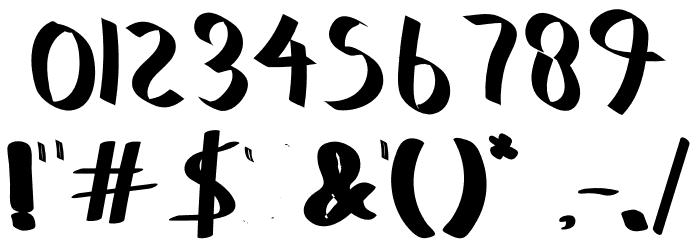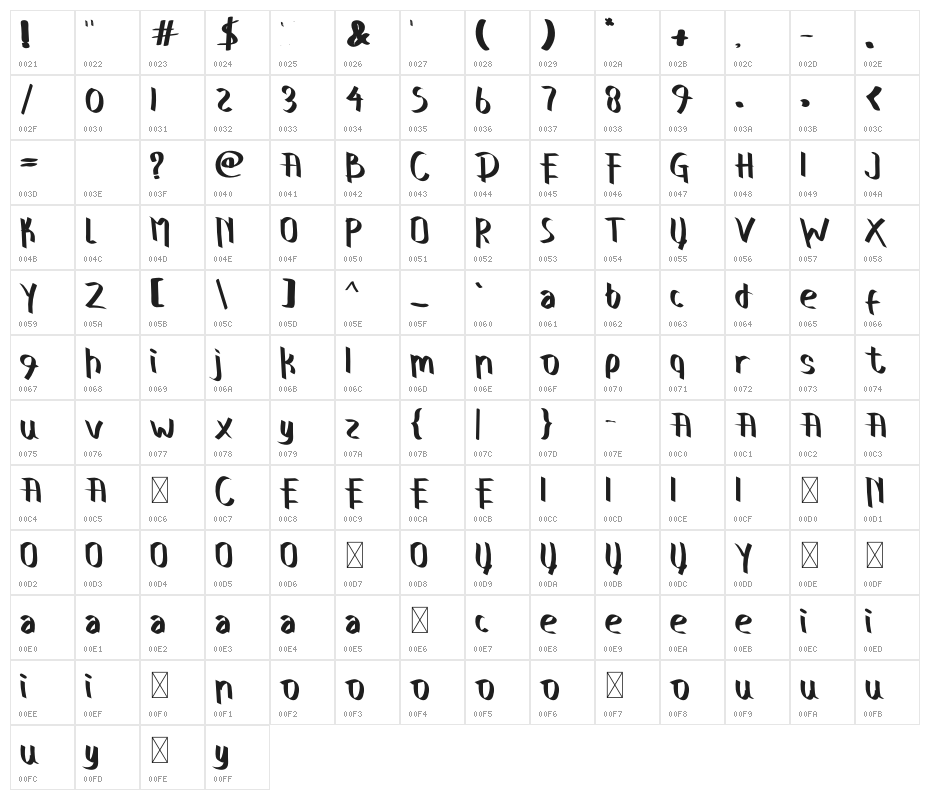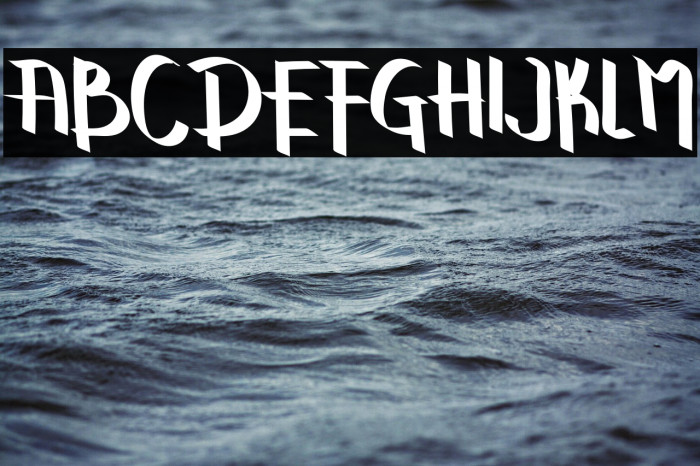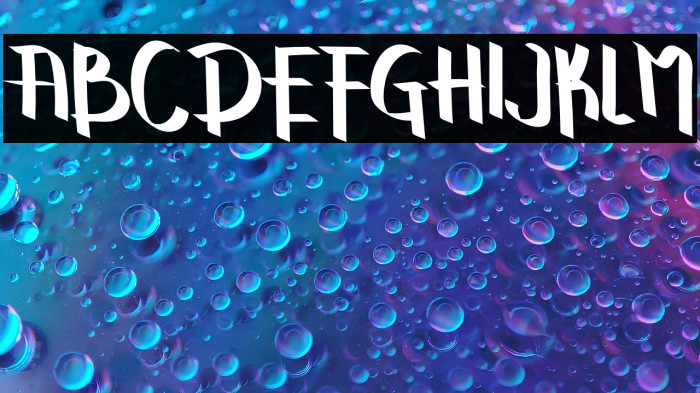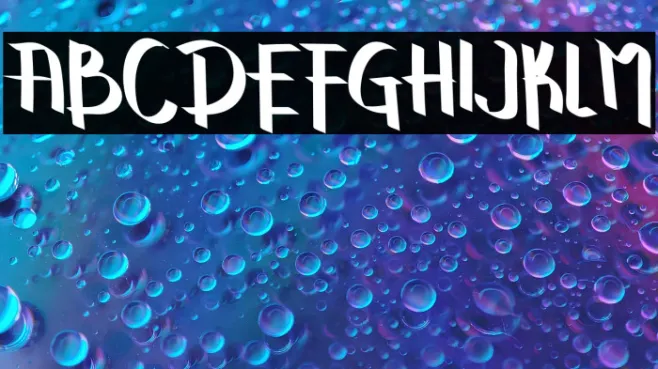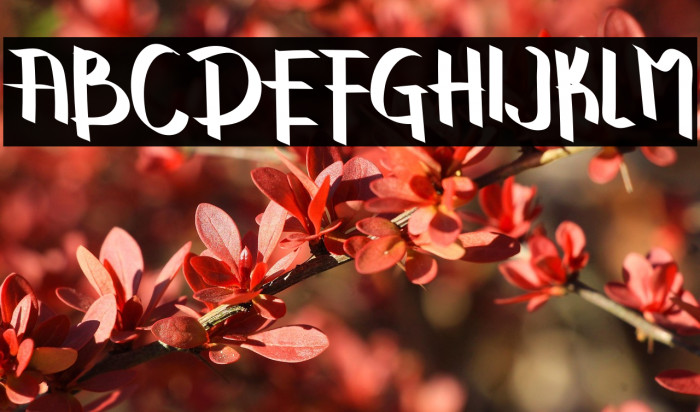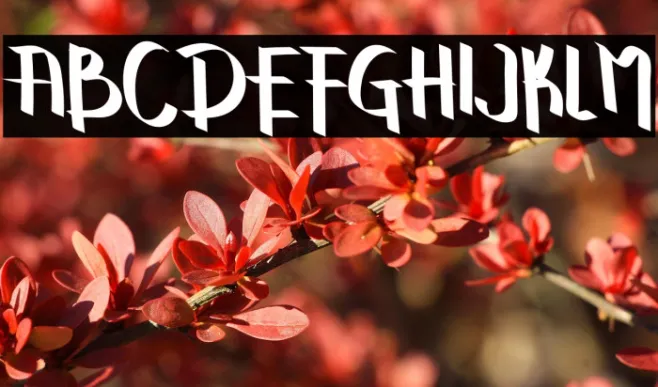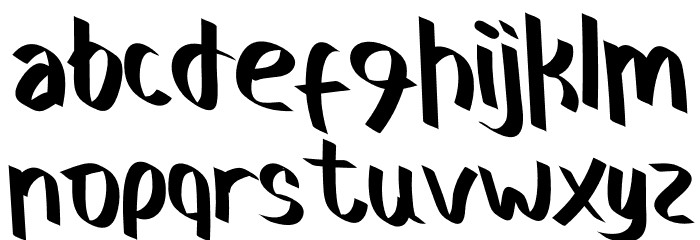
GLOWING ZONE Font
GLOWING ZONE Description
This font features a bold and expressive style with a handwritten appearance. The letters are slightly slanted, giving a dynamic and energetic feel. The strokes are thick and uneven, adding a playful and informal touch. The uppercase and lowercase letters maintain a consistent style, with unique and quirky shapes that stand out. The numbers and special characters follow the same design principles, ensuring a cohesive look across all glyphs. This font is perfect for projects that require a personal and artistic touch, such as posters, invitations, and creative branding.
| Proposed Projects | Ideal for posters, invitations, creative branding, and artistic projects. |